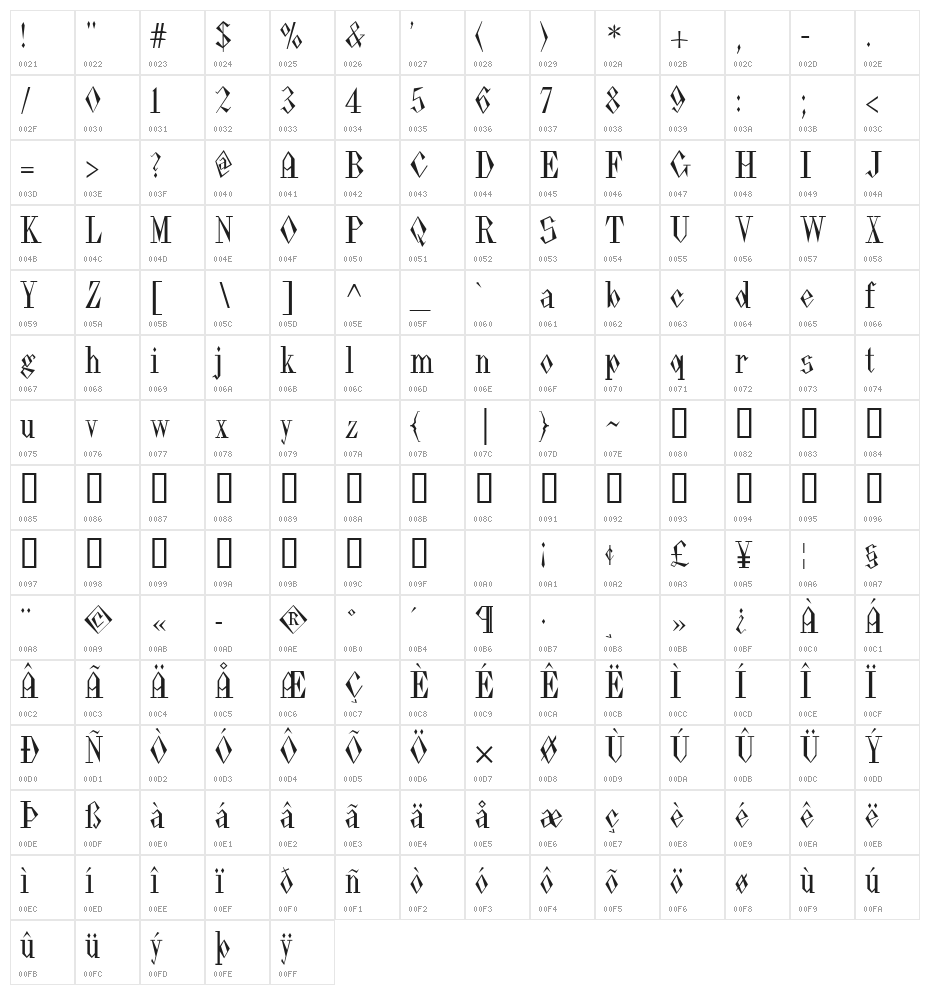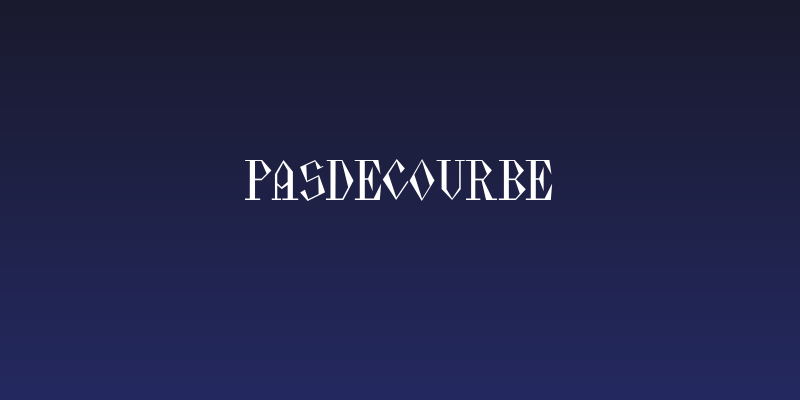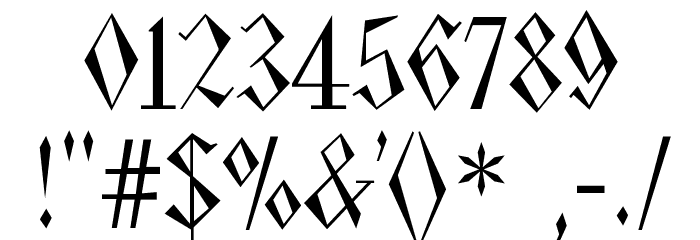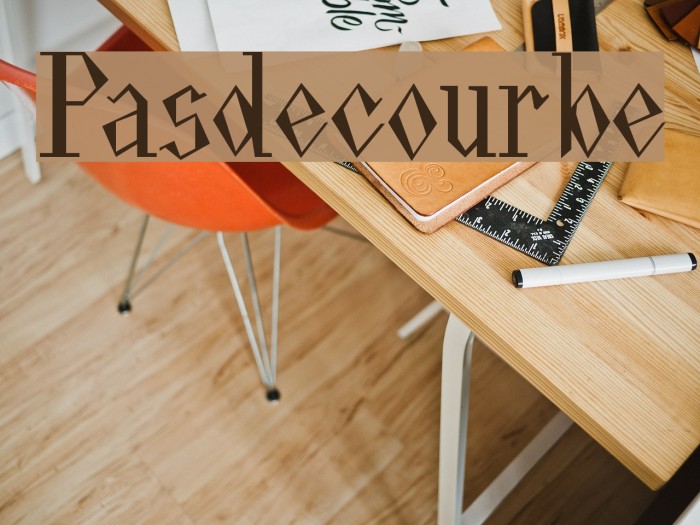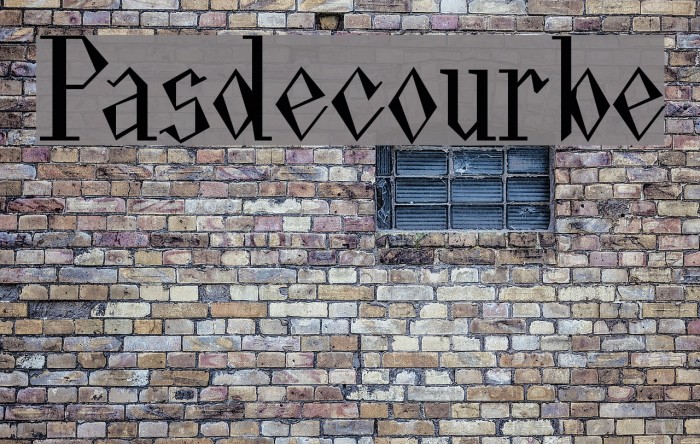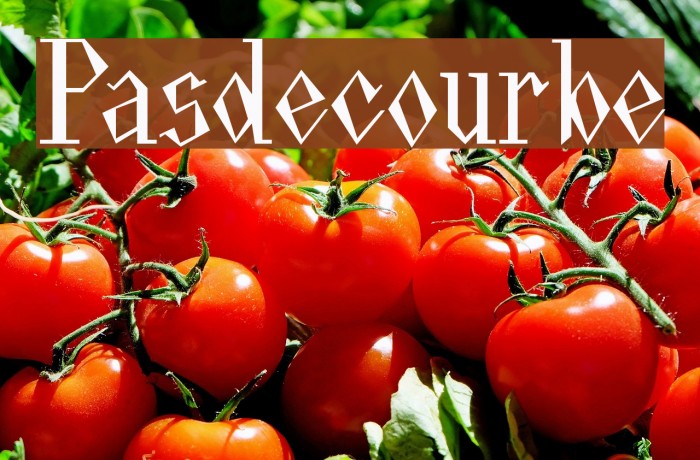
Pasdecourbe Font
Pasdecourbe Description
This font features a unique blend of sharp angles and geometric shapes, creating a striking and modern appearance. The uppercase letters are characterized by their bold, angular forms, while the lowercase letters maintain a consistent style with slightly softer edges. The numbers and special characters follow the same design principles, ensuring a cohesive look across all elements. The font's distinct style makes it ideal for projects that require a bold and eye-catching typeface.
| Proposed Projects | Ideal for branding, poster design, album covers, and any project needing a bold, modern typeface. |